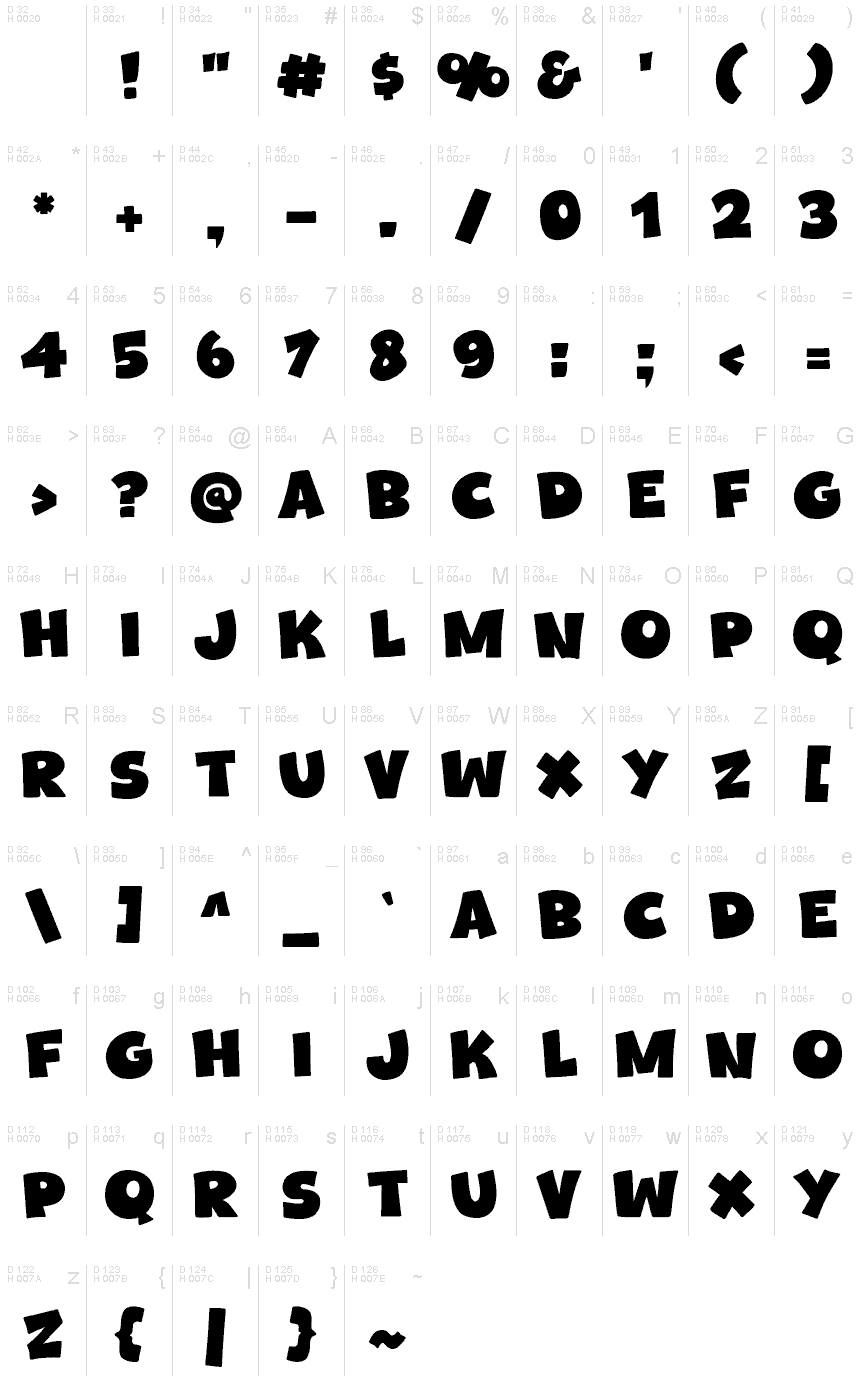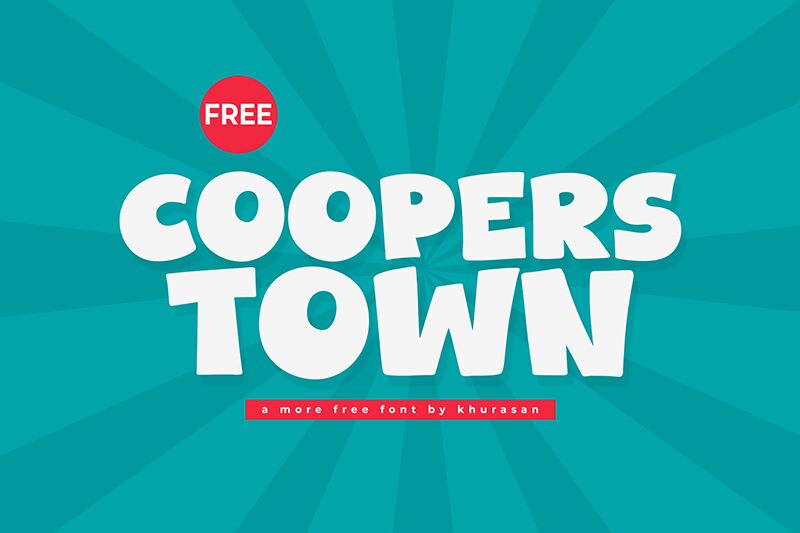
Coopers Town
Coopers Town font by Khurasan is a bold display font with cartoon style. The bold presence of this font follows from its thick playful characters, which gives an overall charming and nostalgic feel with every read. Think of retro magazine covers or vintage neon signs because these are the classic vibes you would get with this typeface.
The presence of Coopers Town can make your posters, logos, branding projects, magazines, invitations, website headers, social media covers stand out more. You could also use it for T-shirts when you need something beyond simple everyday fonts.